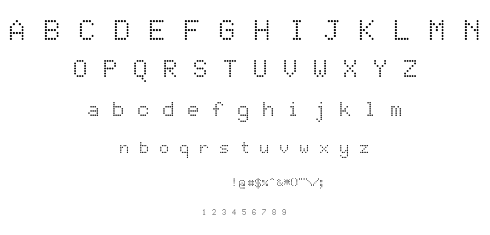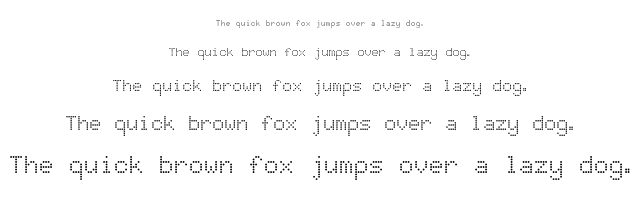
JD LCD Rounded
JD LCD Rounded is a TrueType Font based on two fonts: LCD Plus and LCD Screen.
Symbols of JD LCD Rounded are composed by a single line of dots.